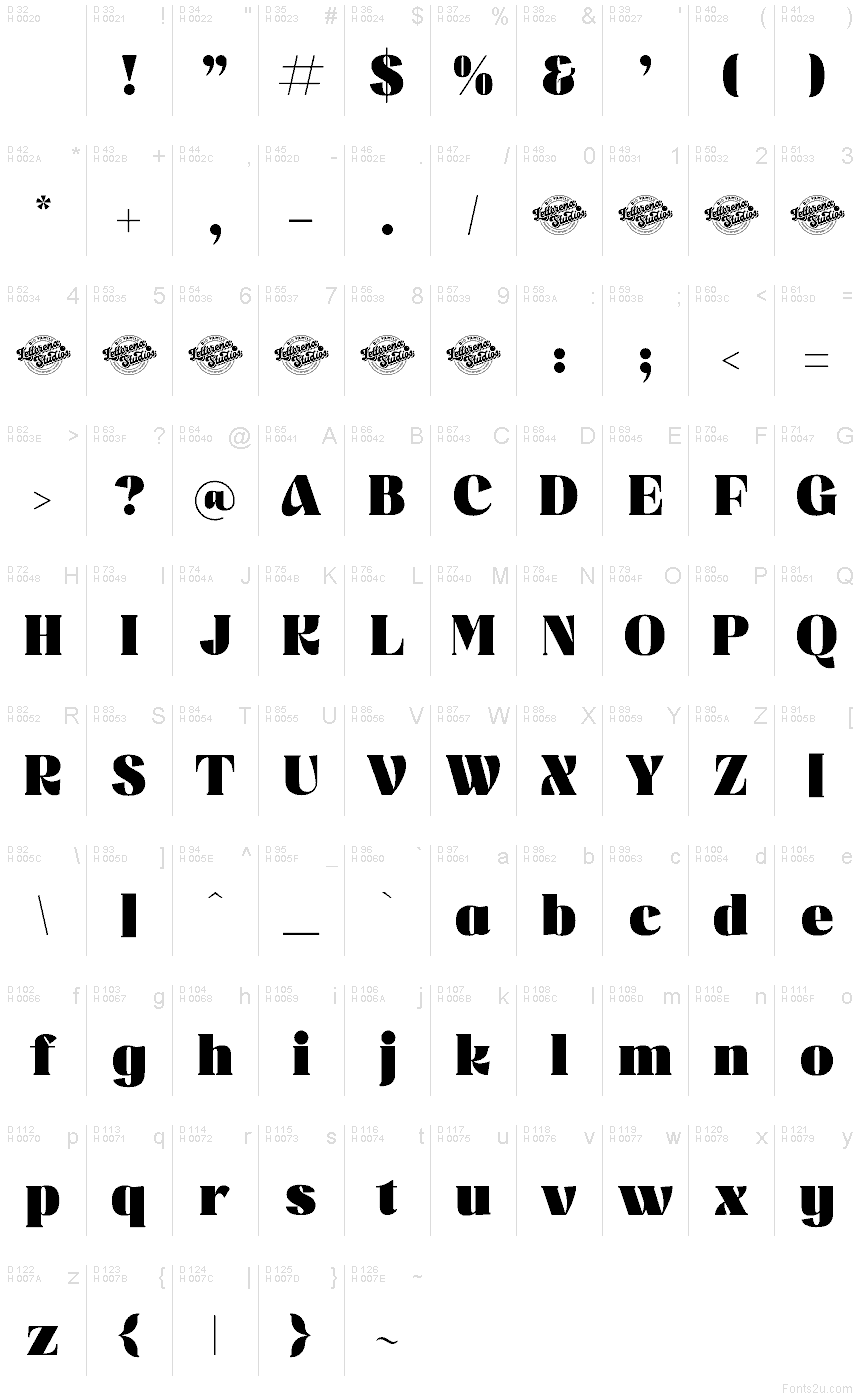
Misflen Radio DEMO VERSION
Misflen Radio font from Letterena Studios combines the traditional appeal of serif fonts with a retro design. Bold and elegant, it stands out through its strong presence and sophisticated impact. Its classic influence forges perfect readability levels while part of an overall delicate structure built with attention to every detail.